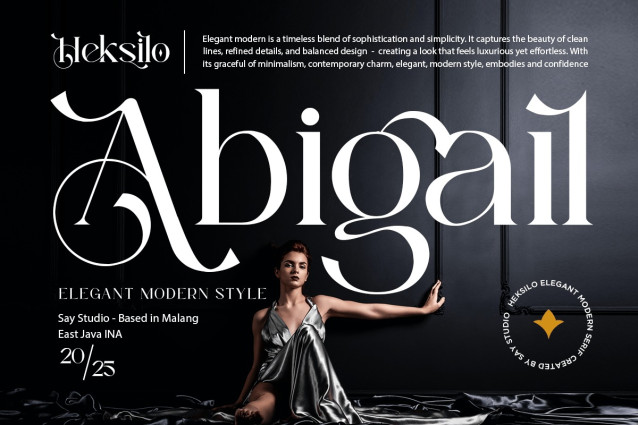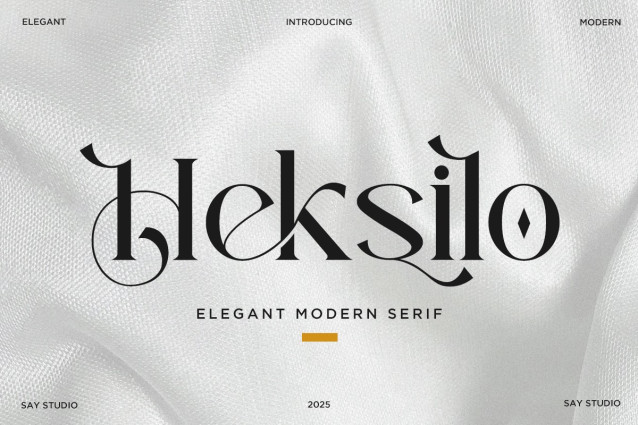
Heksilo Font
Heksilo Font is an elegant modern serif font that blends luxury curves with sharp contemporary details. Its refined contrast, artistic ligatures, and ornamental strokes make it perfect for premium branding, fashion editorials, beauty packaging, magazine titles, and high-end logo designs. With its stylish balance of sophistication and modern flair, Heksilo delivers a timeless aesthetic that elevates any visual identity.